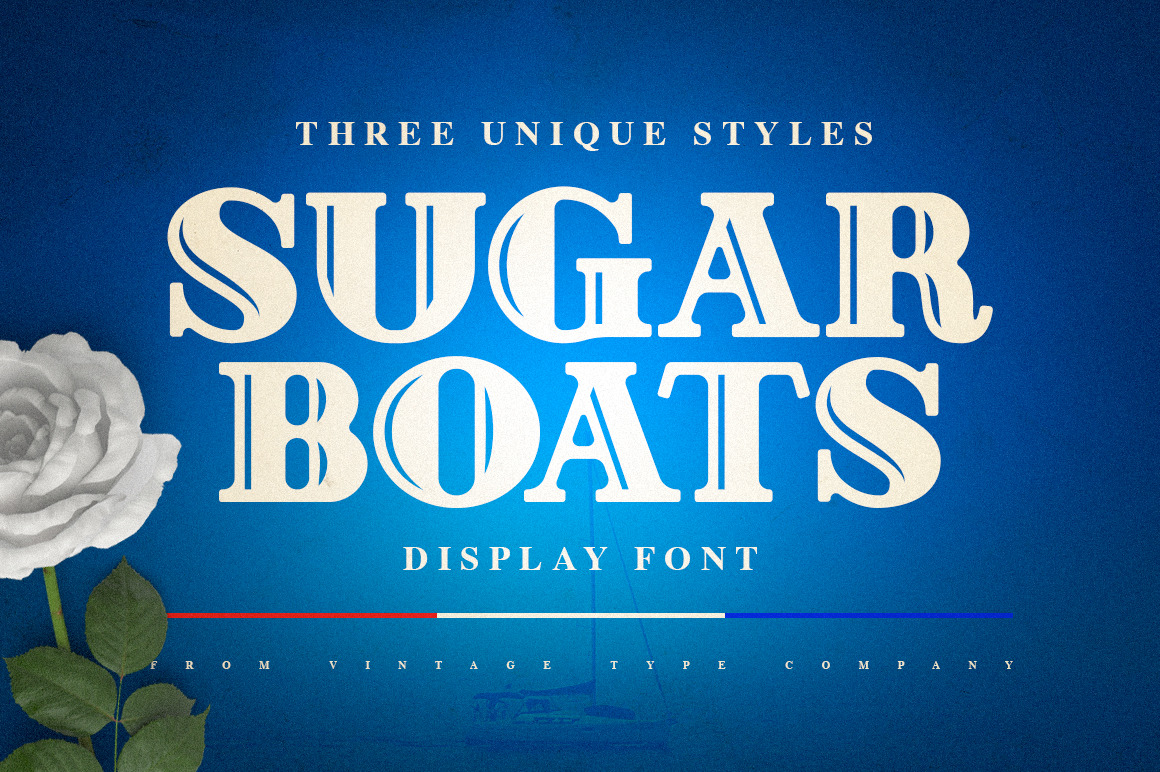
Sugar Boats Display Font is a new serif display font inspired by Victorian & Art Deco typefaces of the past. The font comes with 3 styles included, as well as a BONUS Icon font + .ai & .eps files. Sugar Boats also comes equipped with multilingual support for most western european languages.
This font will lend itself perfectly to a vast array of design projects and you'll find that each of the 3 styles totally changes the tone of the font, allowing you to use it in a variety of contexts.